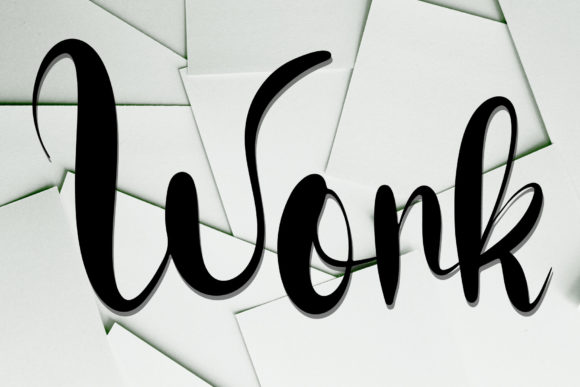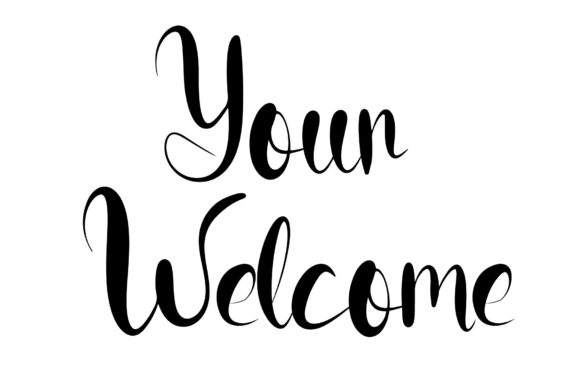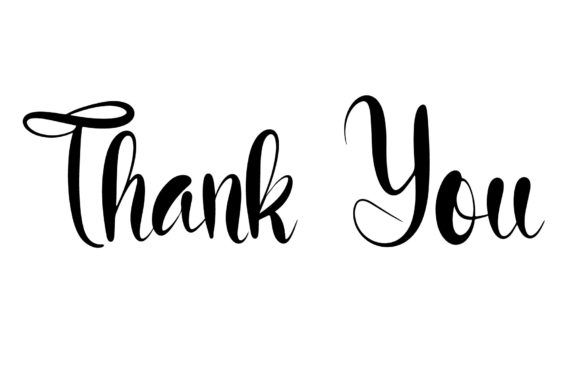
And Now Font
“And Now” is a dynamic and free-flowing script font that brings a sense of movement and energy to various design projects. Designed with high-quality vibes in mind, this font is versatile and well-suited for a wide range of applications, from packaging to invitations, flyers, event posters, and more.
The font’s distinctive and flowing characters make it an eye-catching choice for projects that require a touch of elegance and creativity. Its balanced and harmonious design ensures that it can seamlessly fit into a large design pool, making it suitable for various contexts and design aesthetics.
With its fluid and graceful letterforms, “And Now” is particularly effective in capturing attention and conveying a sense of excitement. Its dynamic nature lends itself well to projects that aim to engage and captivate the audience, such as event promotions, advertising materials, or social media graphics.
The font’s free-flowing script style is especially well-suited for conveying emotions and adding a personal touch to designs. This makes it a great choice for projects that require a sense of warmth and authenticity, such as greeting cards, personal invitations, or heartfelt messages.
In addition to its aesthetic appeal, “And Now” also offers practicality through its PUA encoding. This encoding allows you to access alternate glyphs, swashes, and additional characters easily, giving you the flexibility to customize your typography and create unique compositions that suit your design vision.
The font’s adaptability and versatility make it a valuable asset for designers looking to create a wide range of projects. Its ability to work well across different mediums, from digital to print, ensures that your designs can maintain a consistent and appealing appearance across various platforms.
Whether you’re designing packaging for a product, crafting an eye-catching invitation, or creating promotional materials for an event, “And Now” offers a dynamic and high-quality solution. Its free-flowing script style, balanced character, and PUA encoding capabilities combine to provide you with the tools you need to create engaging and visually appealing designs.